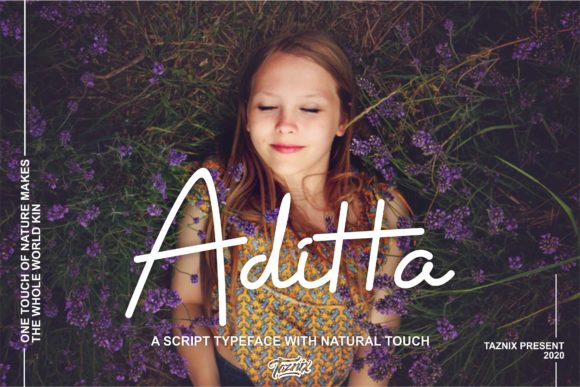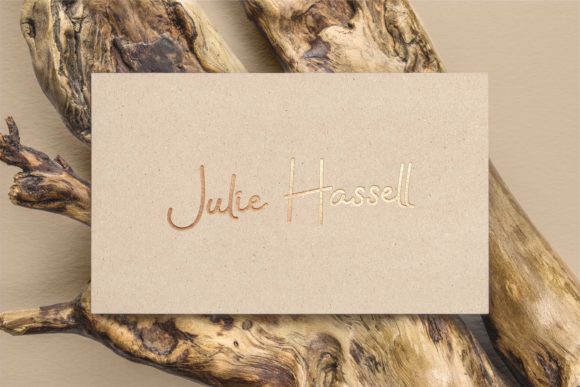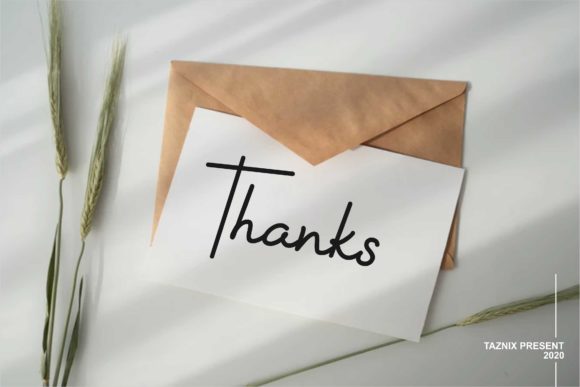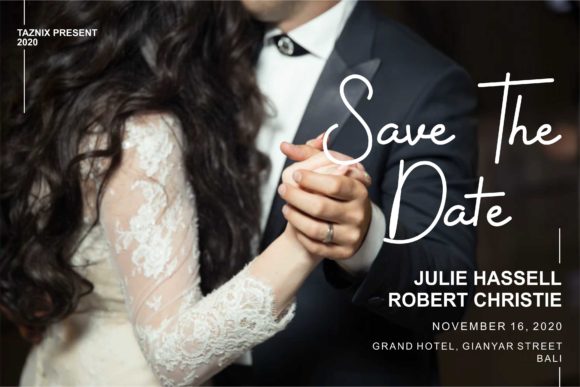
About Aditta Font
Aditta simplifies elegance into one truly outstanding handwritten font. It maintains its classy calligraphic influences while feeling contemporary and fresh. This versatility will appeal to a wide range of crafty ideas, from letterheads and titles, to stationery. Use this gorgeous and unique font to bring any DIY project to life!